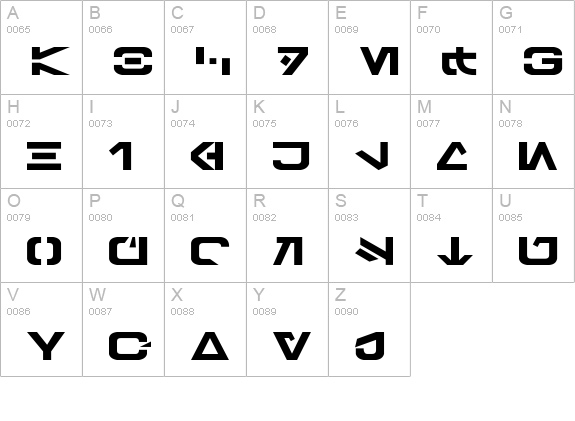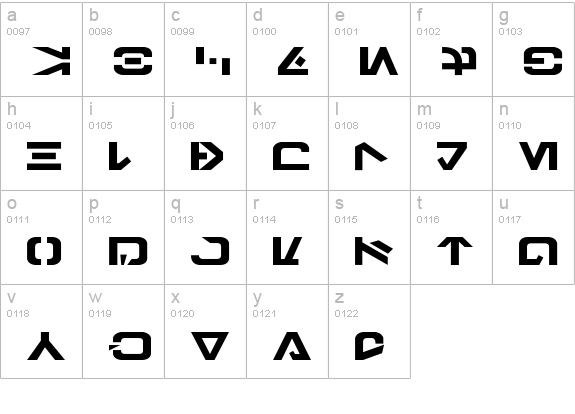
Galactic Basic Font Details
Introducing Galactic Basic font, a mesmerizing typeface that will take your designs to intergalactic heights! With its sleek and futuristic appearance, Galactic Basic is the perfect choice for all your sci-fi inspired projects. The font exudes a sense of cosmic wonder, capturing the essence of space exploration and adventure. Featuring a unique blend of clean lines and geometric shapes, Galactic Basic font is both modern and timeless. Its precise letterforms are crafted with utmost care, ensuring legibility while maintaining an otherworldly charm. Each character is meticulously designed to evoke a sense of cosmic harmony, making Galactic Basic an instant favorite among designers and typographers alike. But the best part? Galactic Basic font is completely free! Yes, you read that right. This captivating typeface is available for free download exclusively at FontsMarket.com. Now you can bring the magic of the cosmos into your projects without breaking the bank. Whether you're working on a science fiction book cover, a futuristic website, or a mesmerizing poster, Galactic Basic font will elevate your designs to new dimensions. Its versatility allows it to be used in both headlines and body text, ensuring a seamless visual experience throughout your project. Join the ranks of designers who have embraced the cosmic allure of Galactic Basic font. Download it today from FontsMarket.com and let your creativity soar beyond the stars. Unleash the power of the universe in your designs with this free, captivating typeface. Don't miss out on this cosmic opportunity - get Galactic Basic font now and embark on a journey to design greatness!